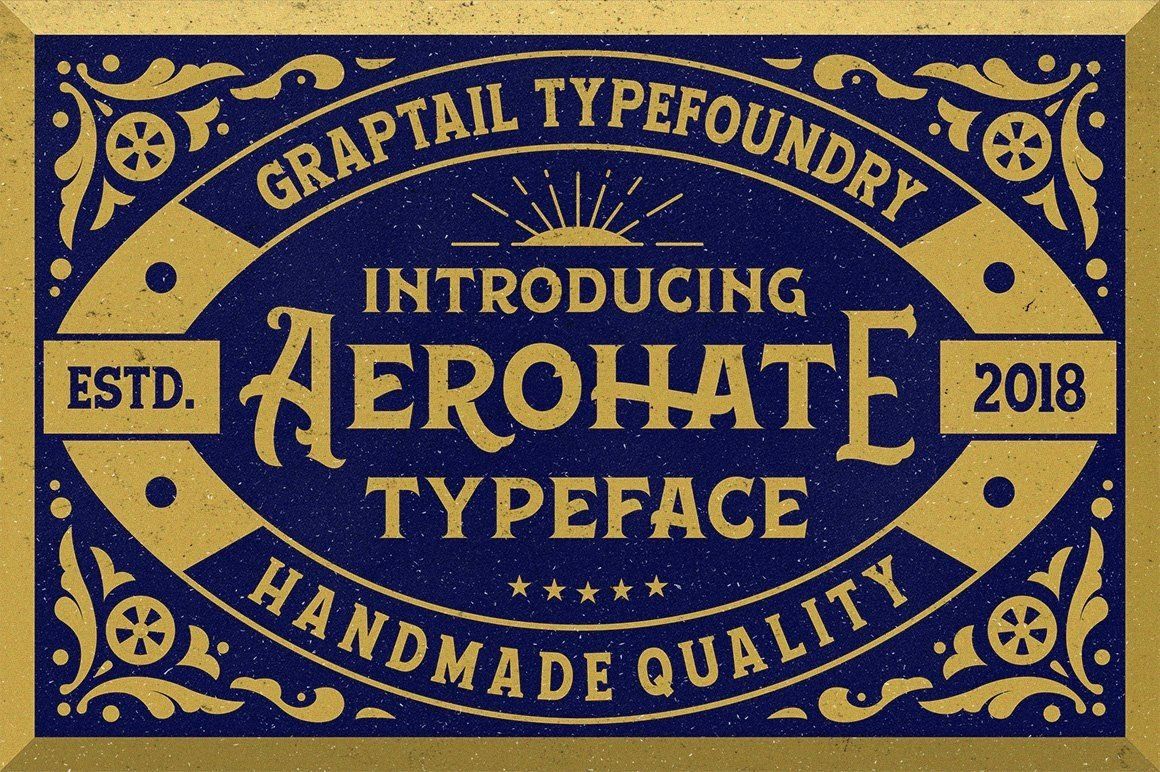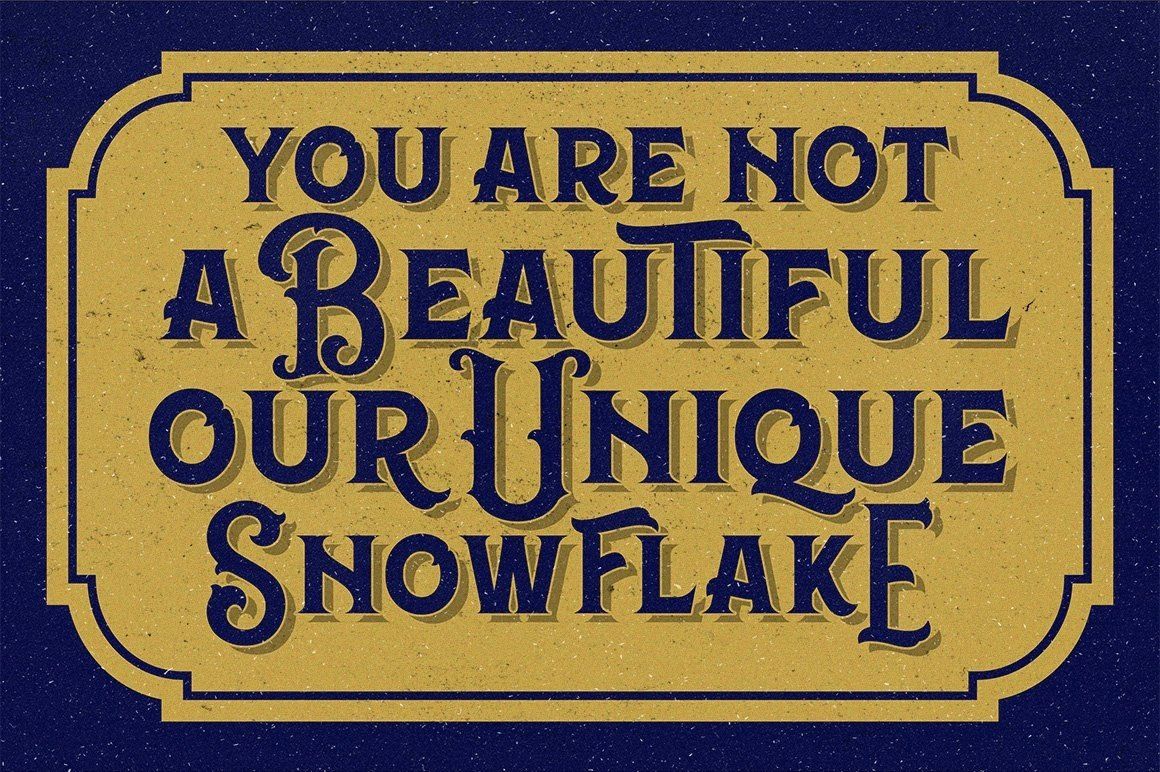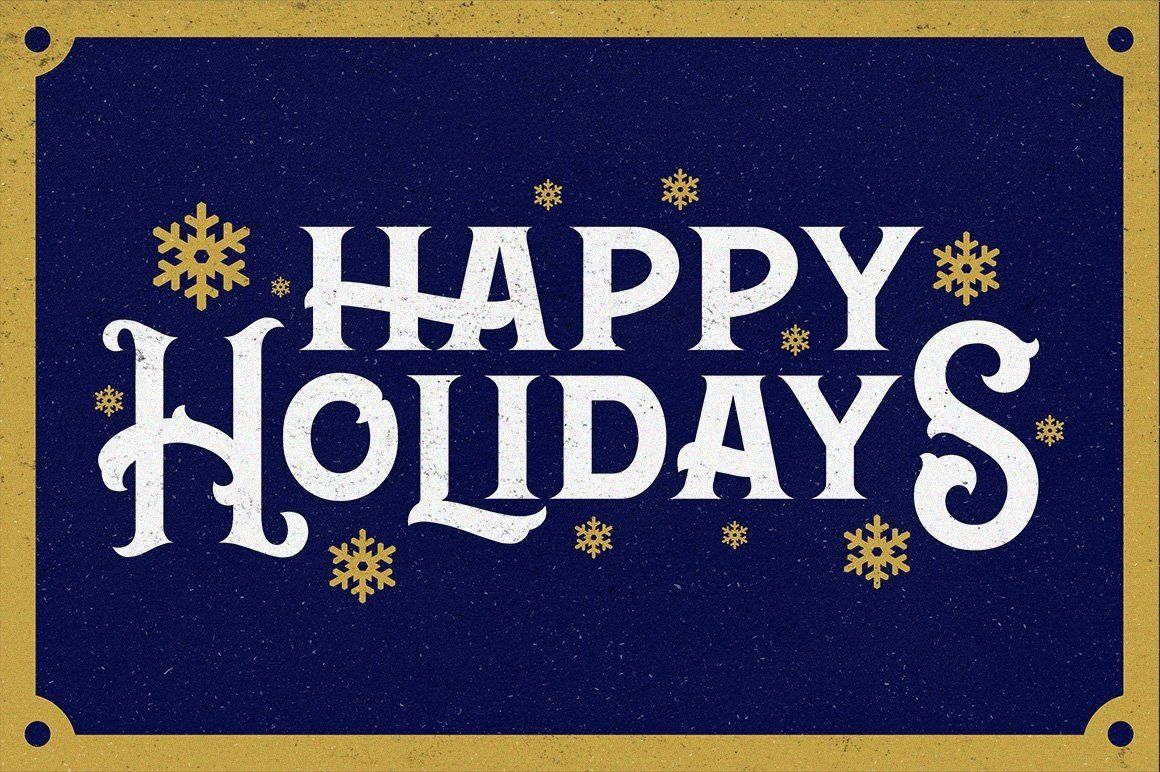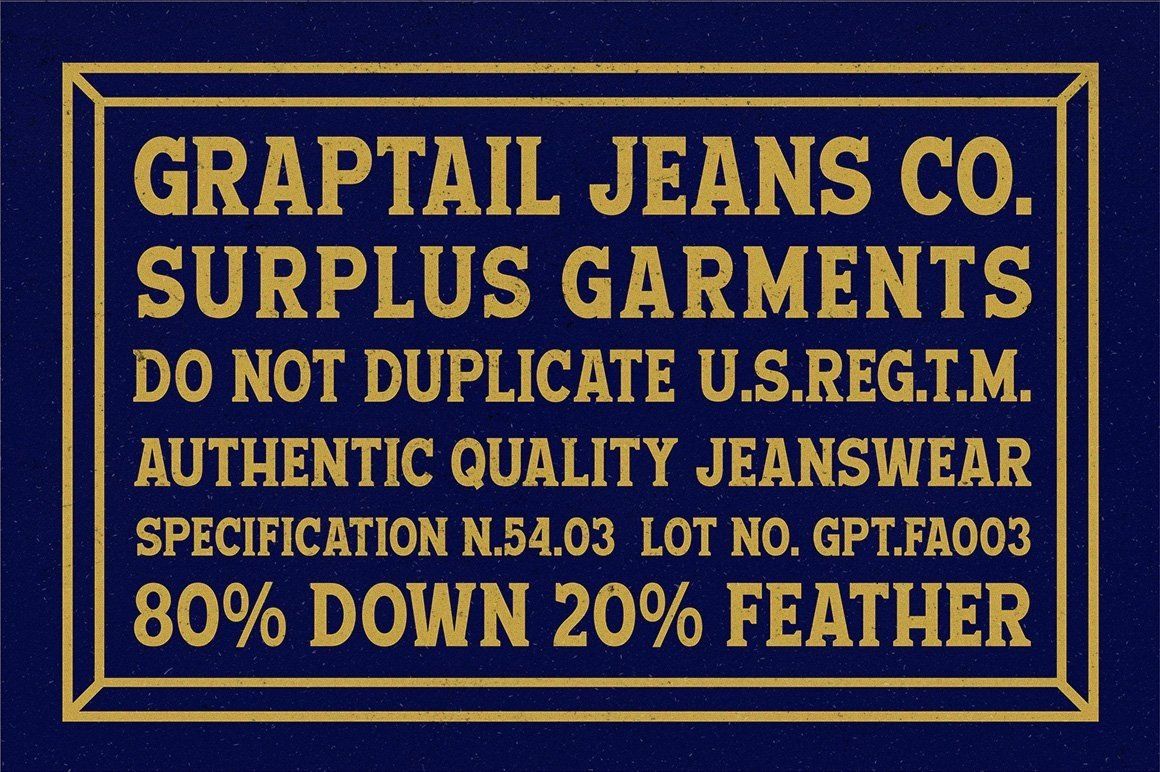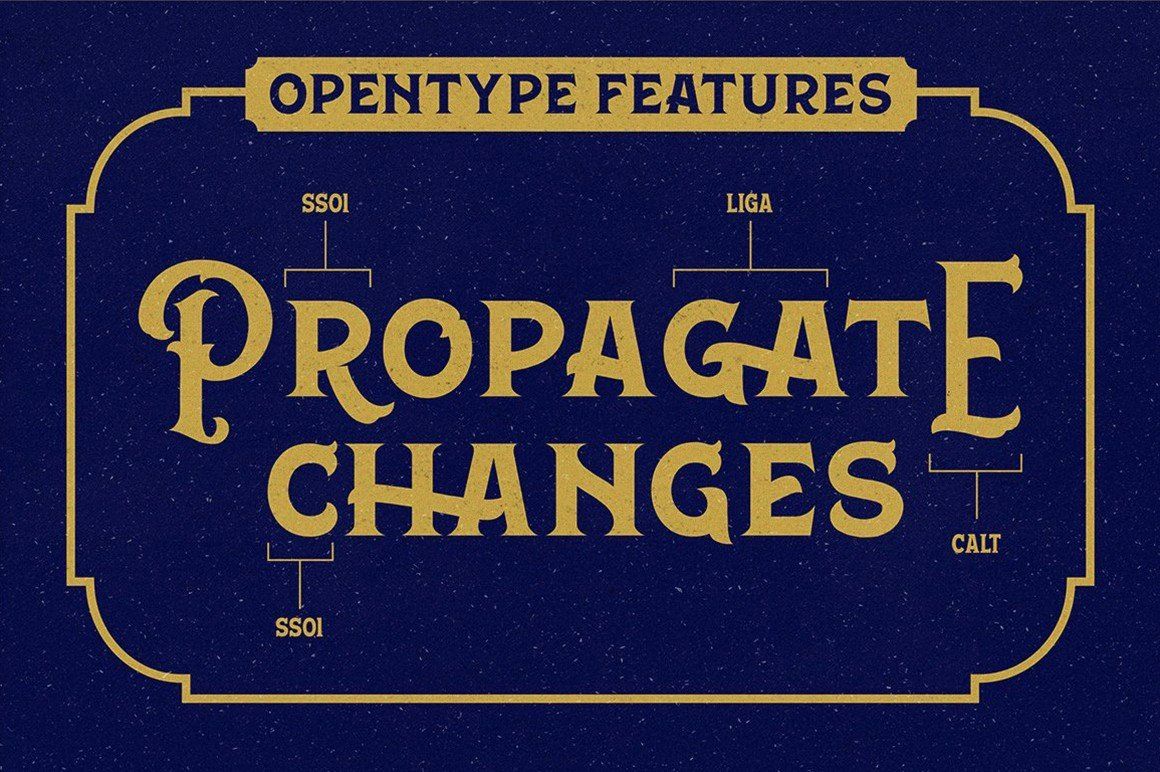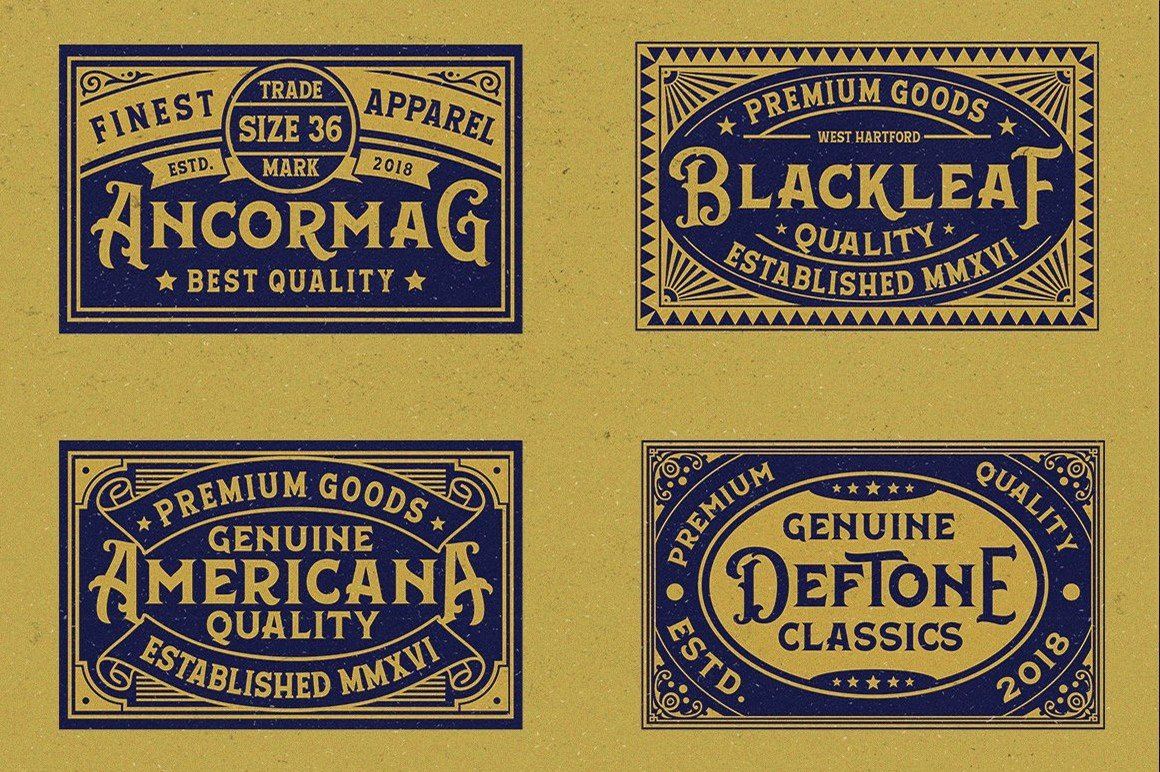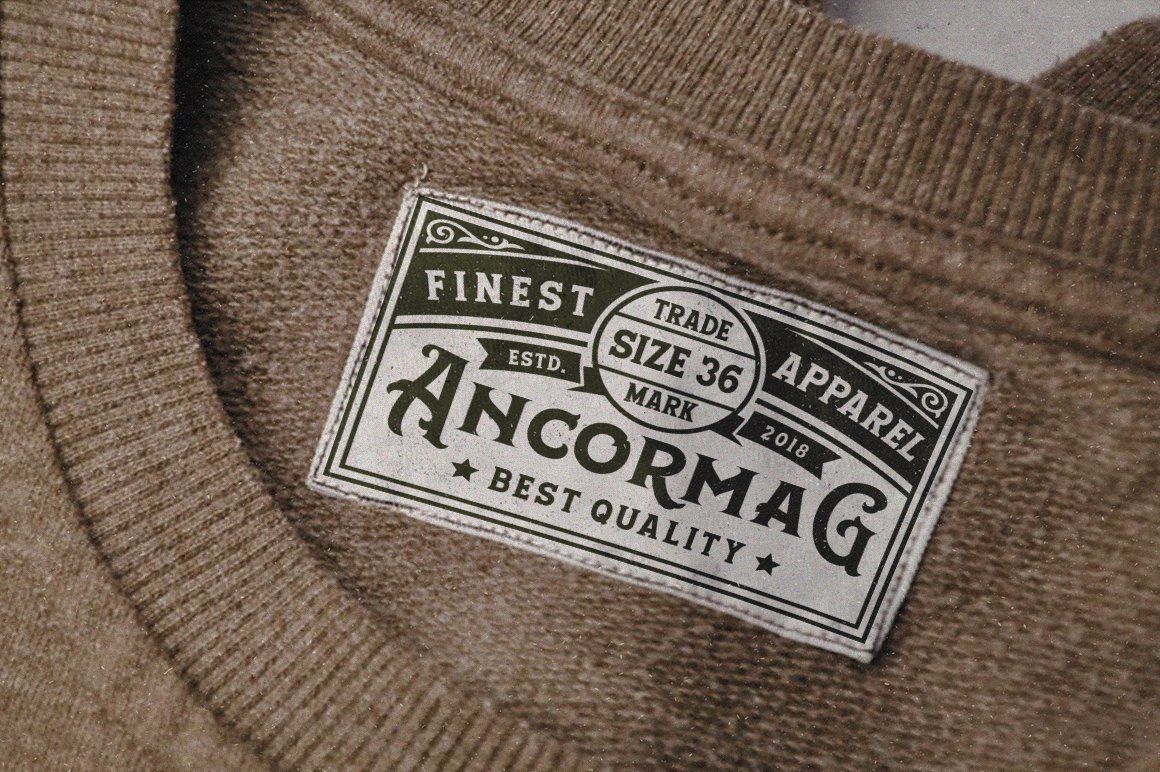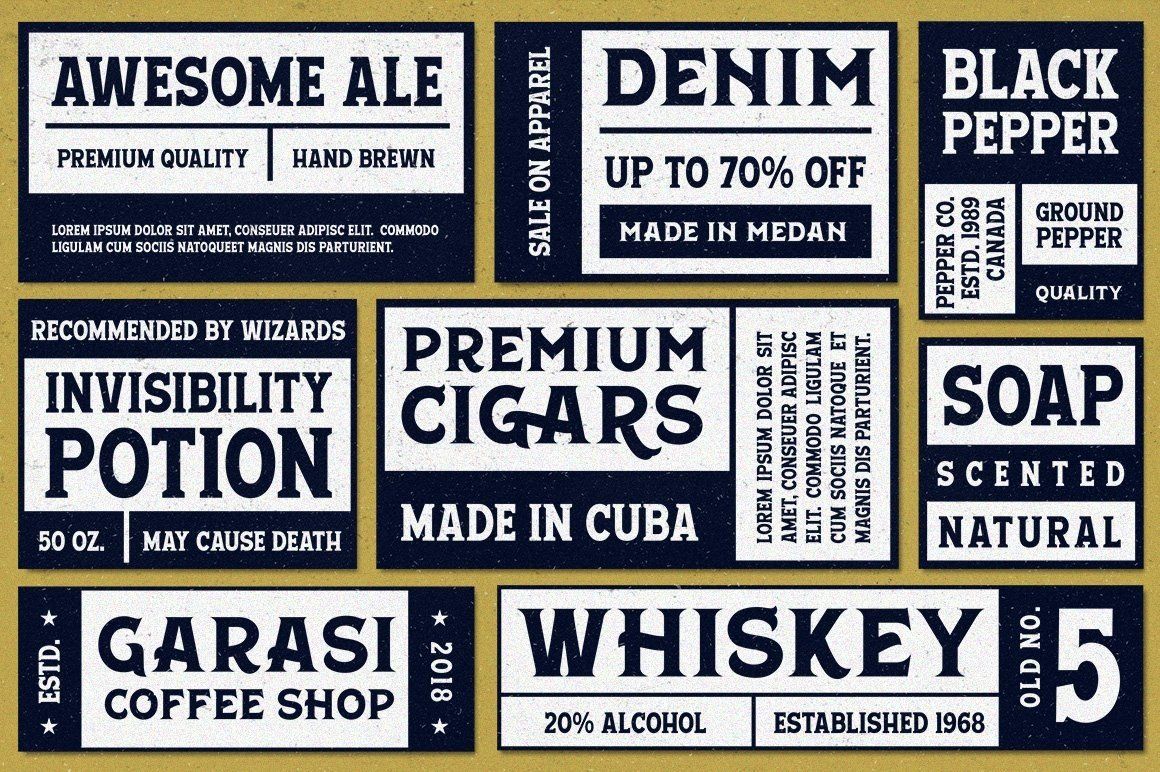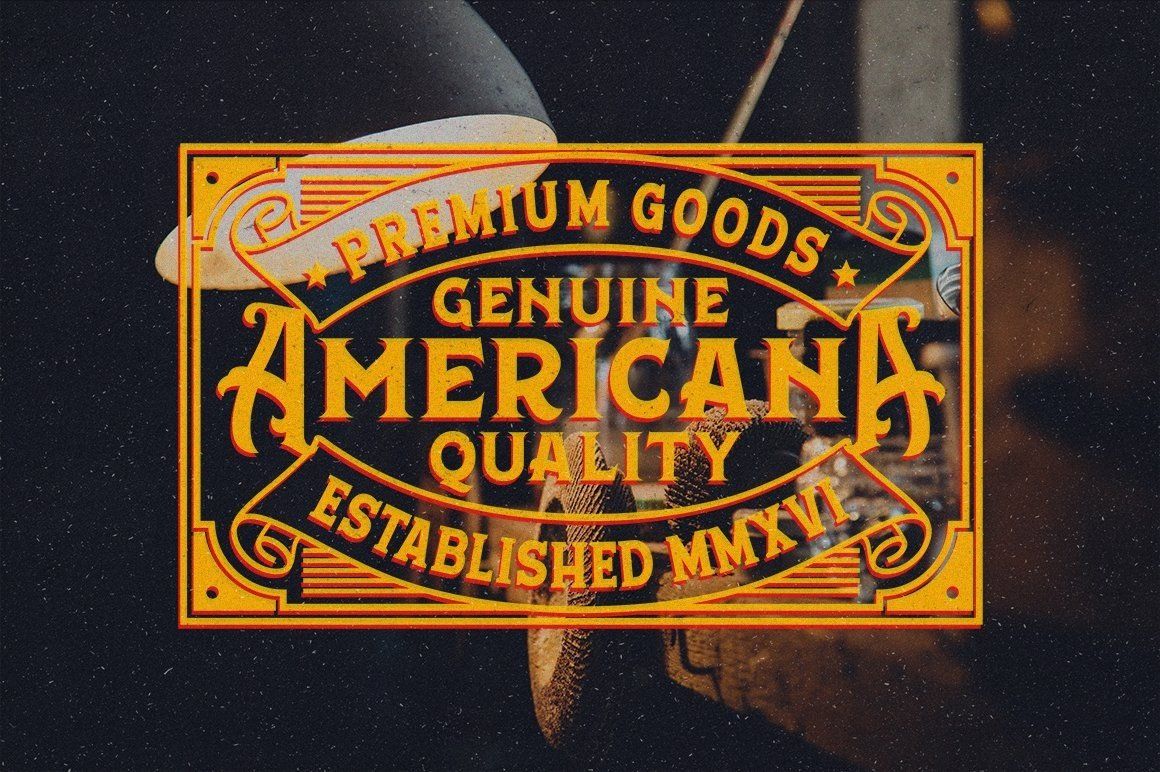
Aerohate is a font display is made by hand, inspired by classic labels and poster.
Aerohate comes with uppercase, lowercase, numerals, punctuations and so many variations on each character include opentype alternates, common ligatures and also additional swash to let you customise your designs. Perfect to use for Logotype, Letterhead, Poster, Apparel Design, Label and etc.